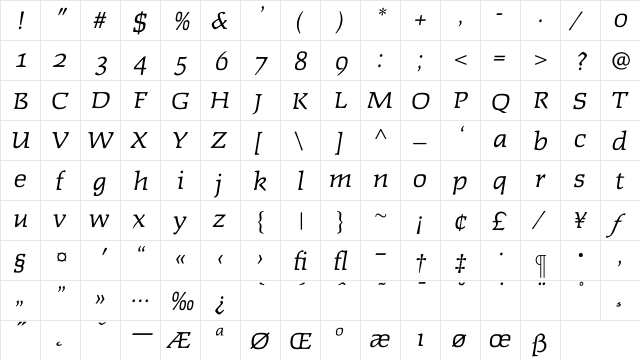
FaustLightItalicOldStyleFigs Regular Font Preview
Design Context for FaustLightItalicOldStyleFigs Typeface
FaustLightItalicOldStyleFigs brings classic typographic sensibility to the table — its serifs and measured letterforms reflect centuries of print heritage. Its italic angle brings a sense of urgency and motion to the letterforms. The delicate stroke weight brings airiness and refinement to layouts.
Pro Tip: Use FaustLightItalicOldStyleFigs with generous line-spacing for the most refined reading experience — its light weight benefits from room between lines.